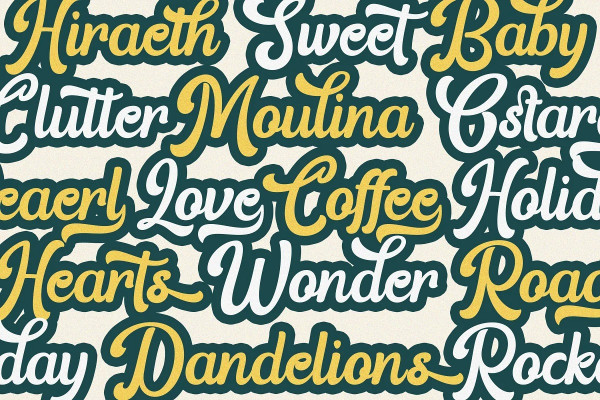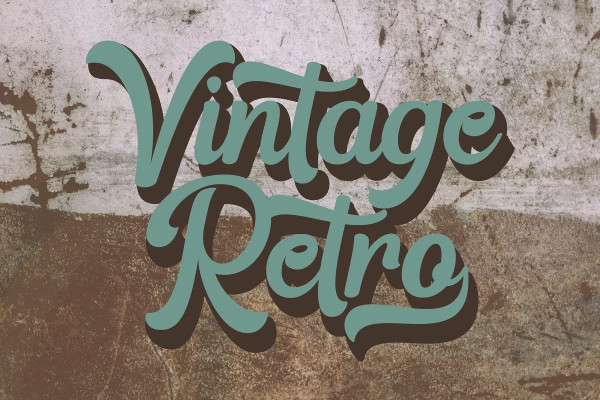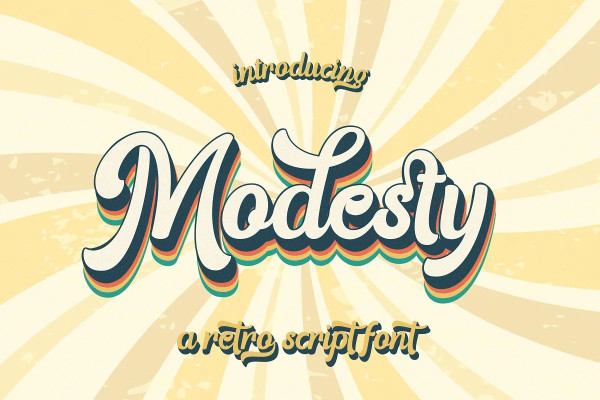
Modesty Typeface
Modesty Typeface – Groovy Font, our latest creation, modern serif with various alternates and ligatures, multilingual support, an updated blend of bohemian style, suitable for branding, business, logos, magazines, and others